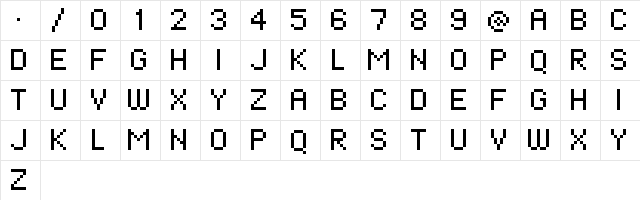
standard 07_55 Regular Free Font
standard 07_55 Regular
Design Context for standard 07_55
standard 07_55 is a composed and adaptable typeface that performs quietly and consistently across a wide range of design contexts.
Pro Tip: Use standard 07_55 in both headline and body roles to test its range before committing to a single application.